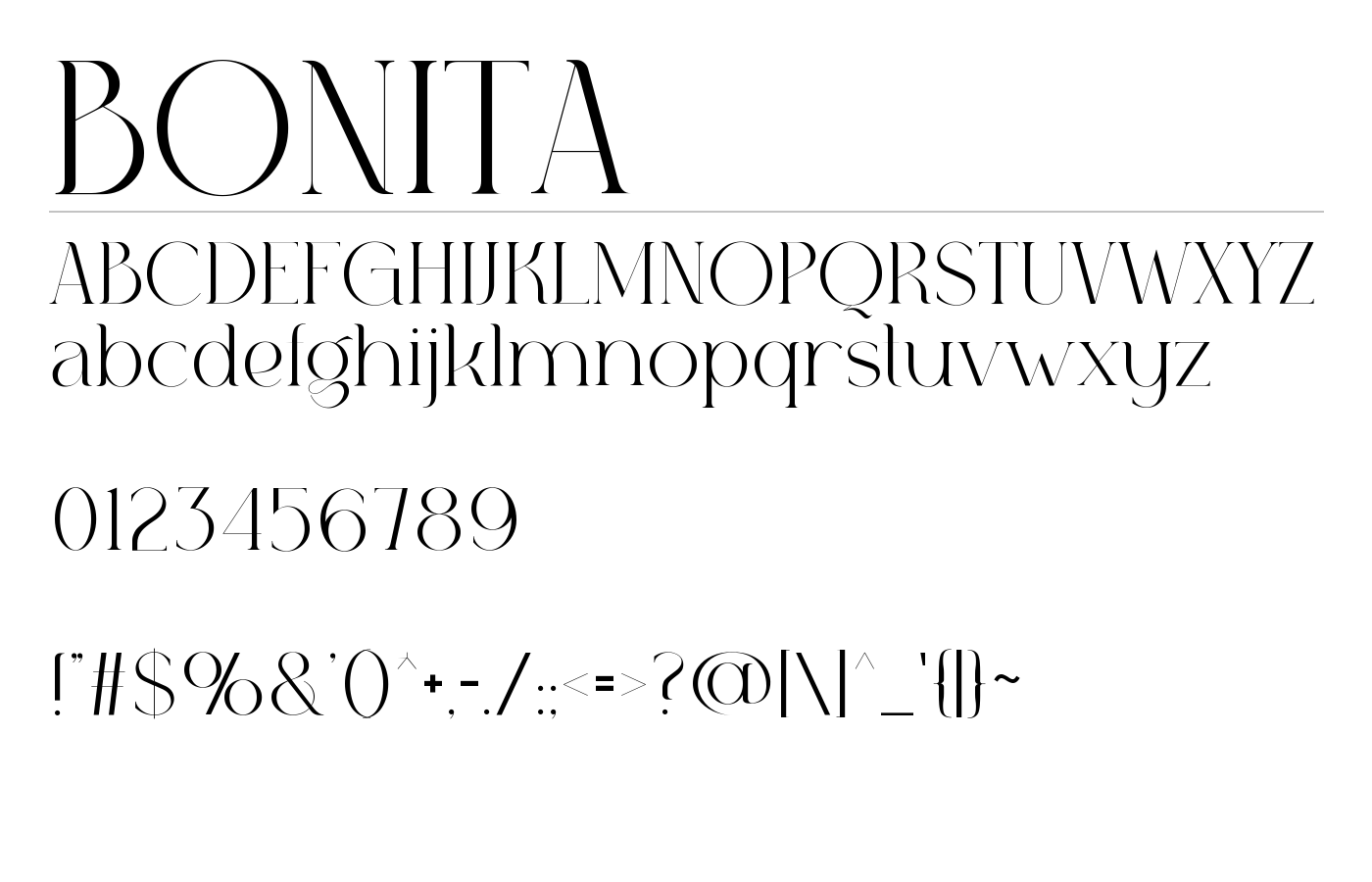
Bonita is an elegant serif font with a high contrast between thick and thin strokes, featuring delicate, slender letterforms and tapered serifs that evoke a refined, sophisticated feel. Its tall, narrow proportions and unique, stylish details make it ideal for luxury branding, fashion editorials, and upscale headlines where a touch of grace and modern flair is desired. This font works beautifully in contexts that require a chic and polished appearance, capturing attention with its sleek and artistic design.
BONITA Font
About BONITA Font
| Font family | BONITA Font |
| Designer | TOKOPRESS TEAM |